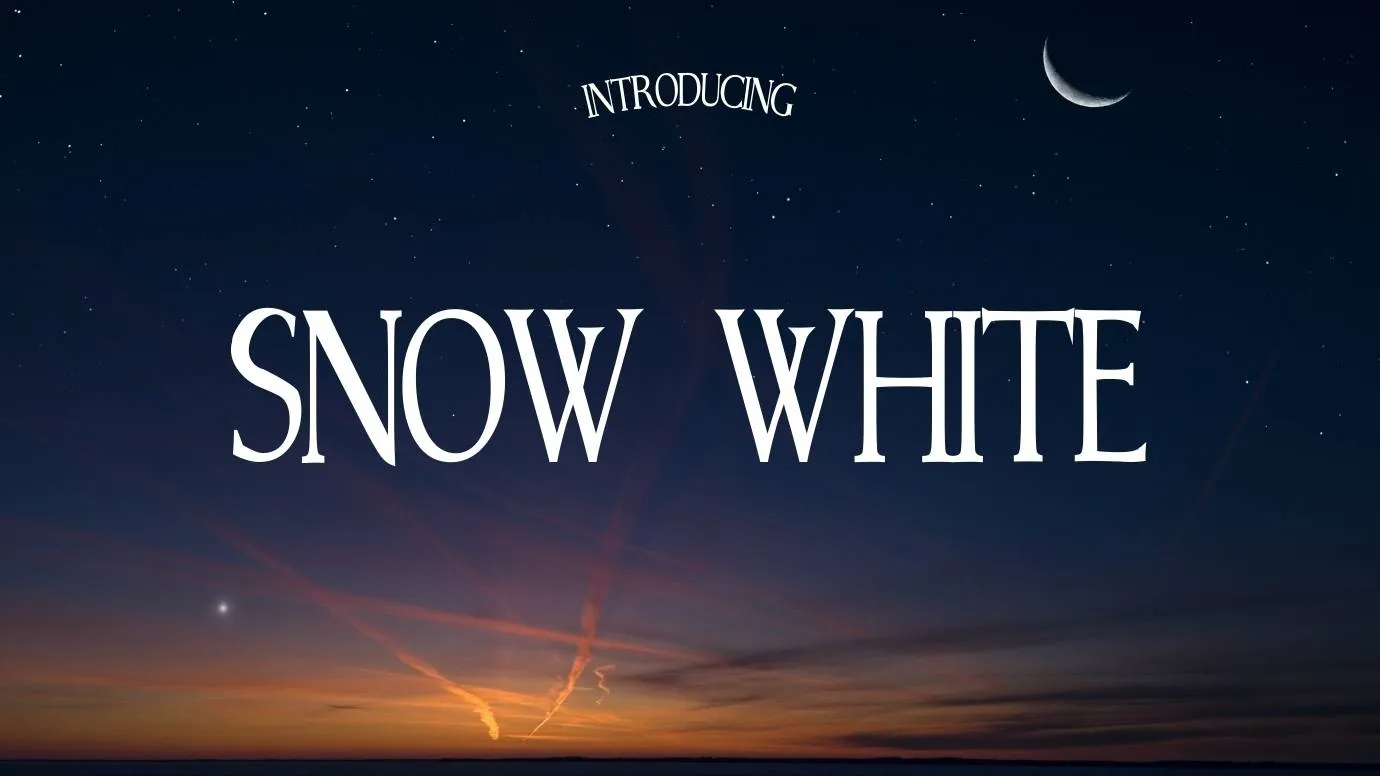
Snow White Font Family is a very modern font that has different advanced and gorgeous features. Paolo Vannucci is the real manufacturer of typography and after its release, this texture got popularity in the design fields.
Snow White Font
NameSnow White Font
TypeSerif
DesignerPaolo Vannucci
FoundryAlphabet & Type
Date Released2013